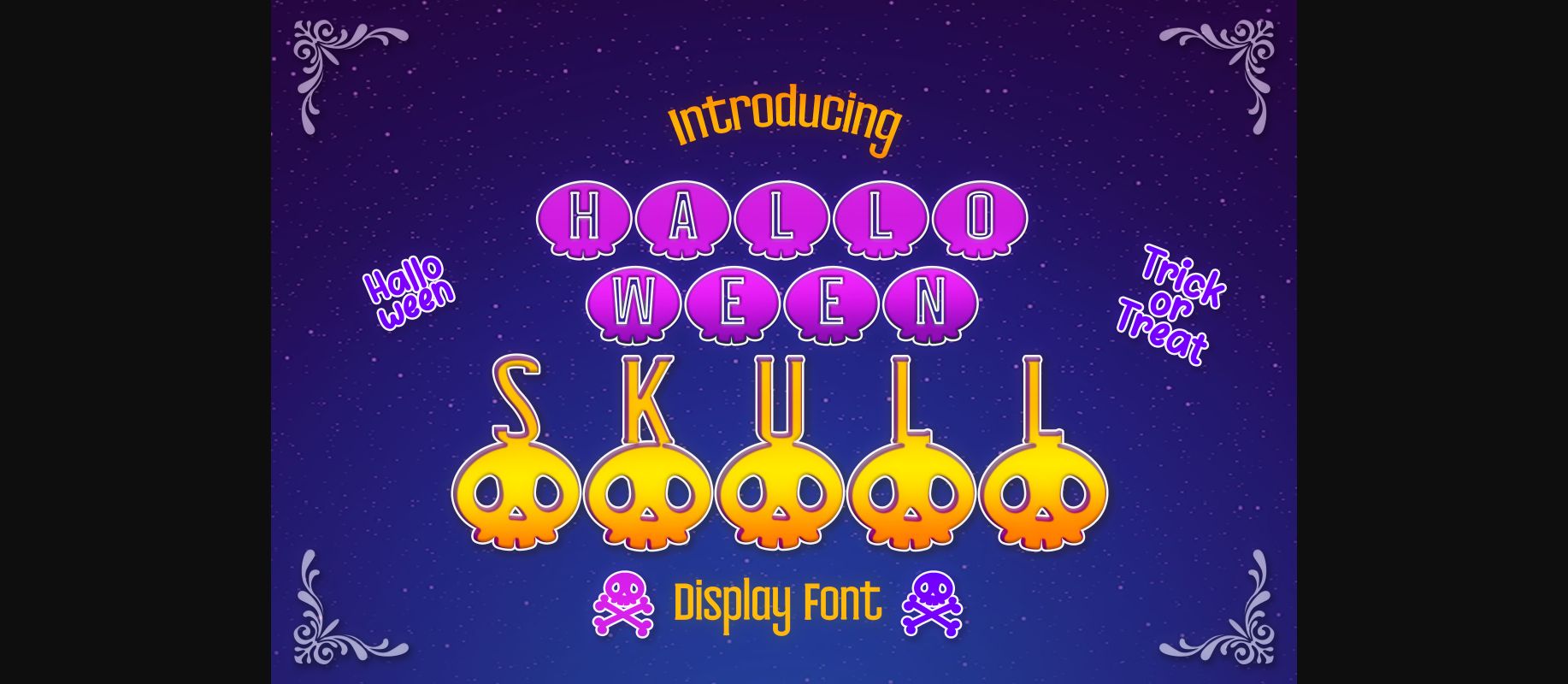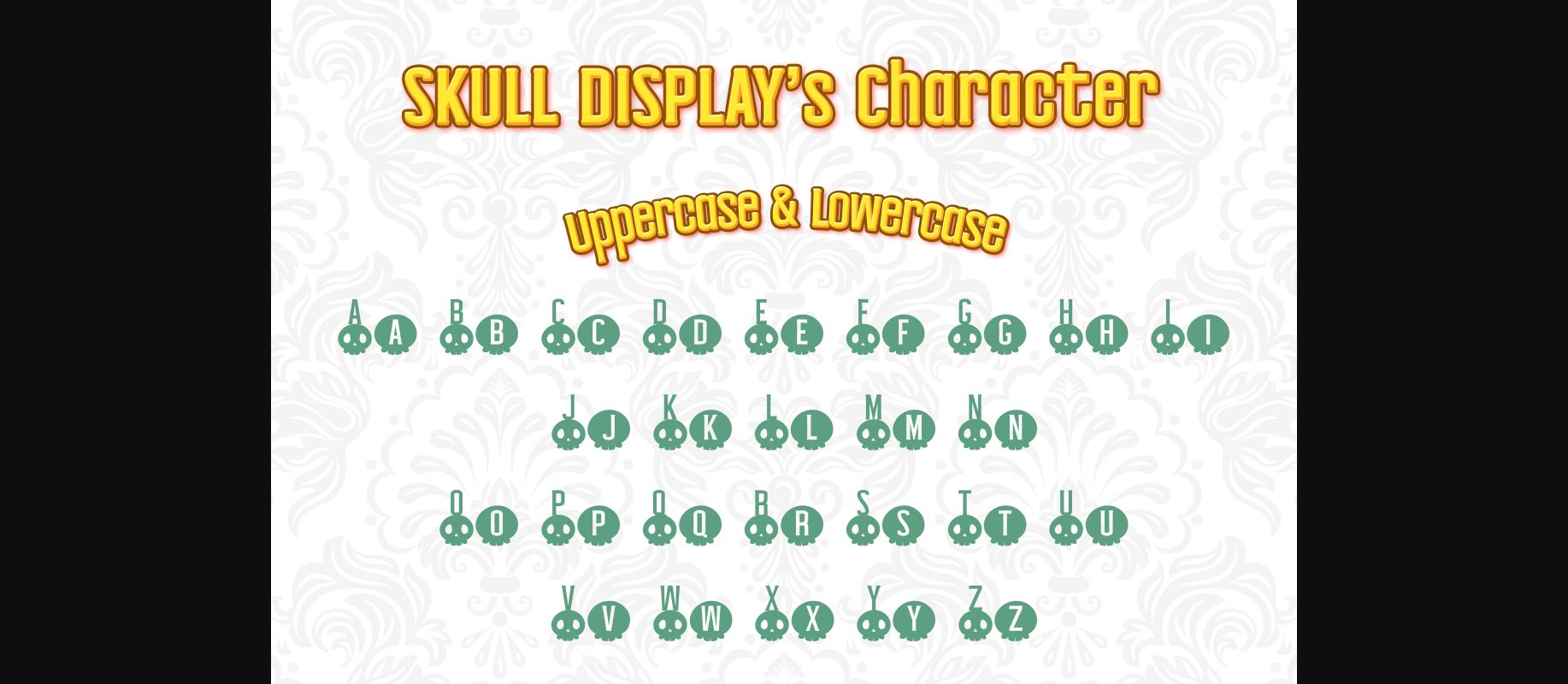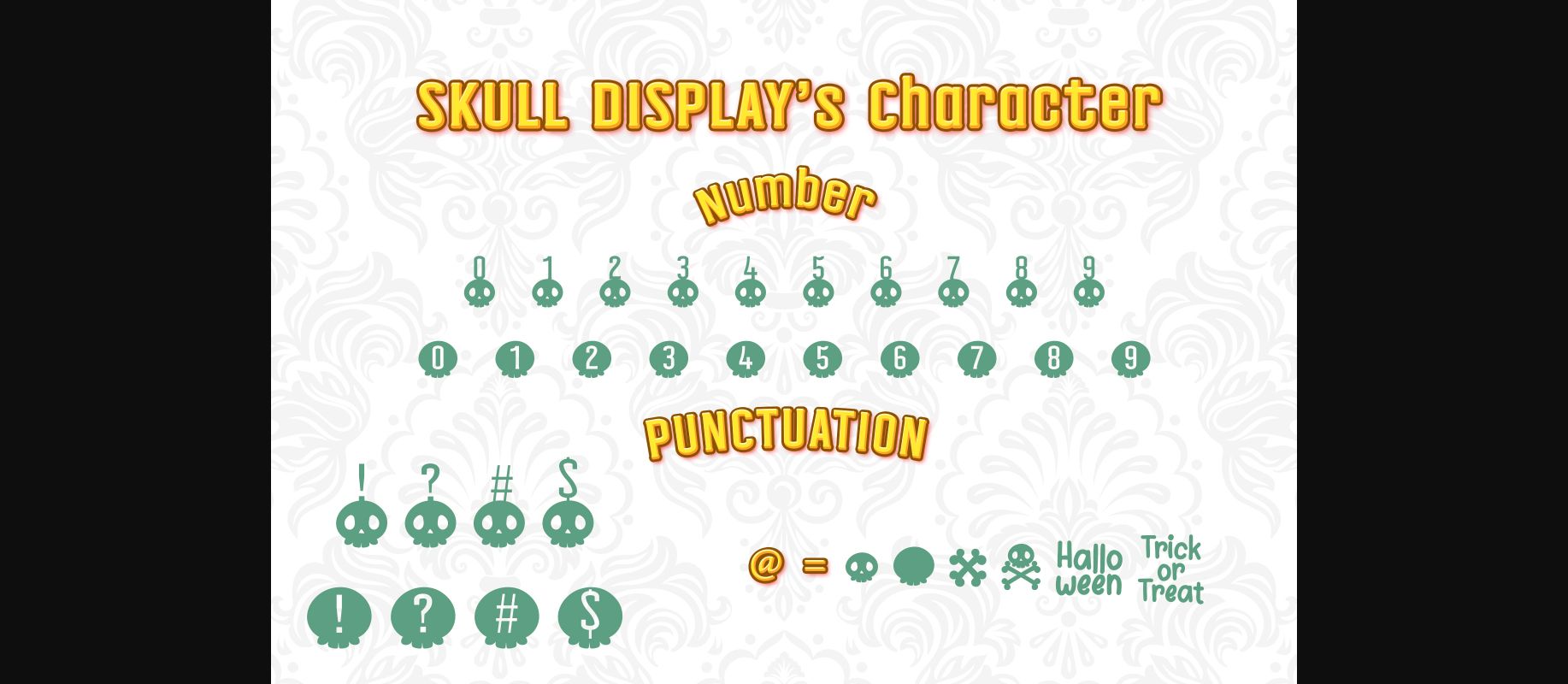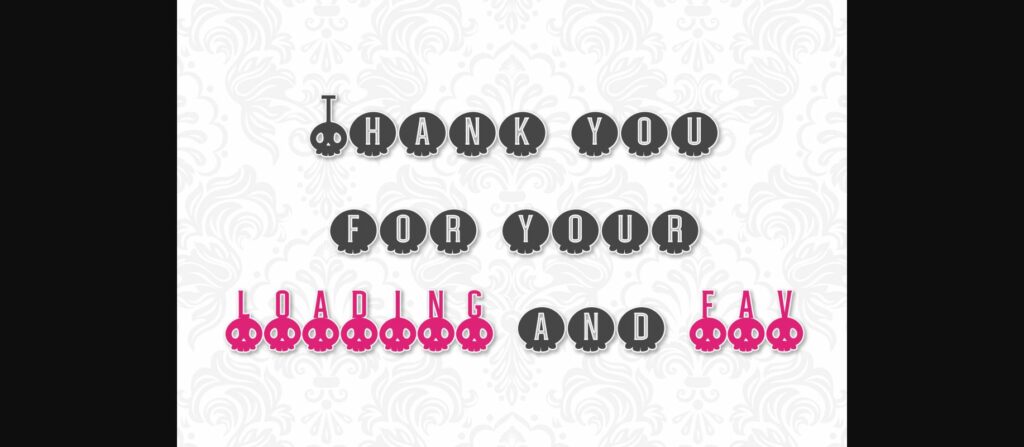
About Halloween Skull Font
Halloween Skull is a thin and tall lettered decorative font. Fall in love with its incredibly versatile style and use it to create spectacular Halloween designs!